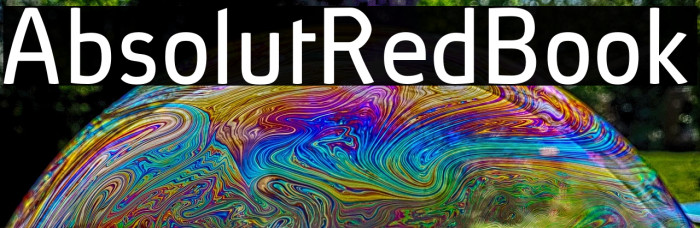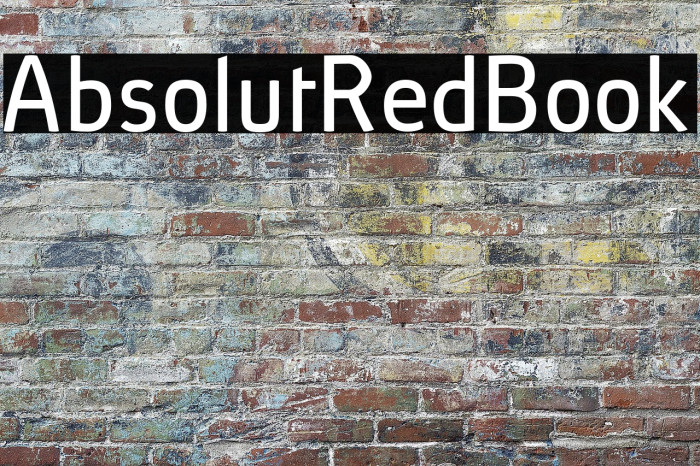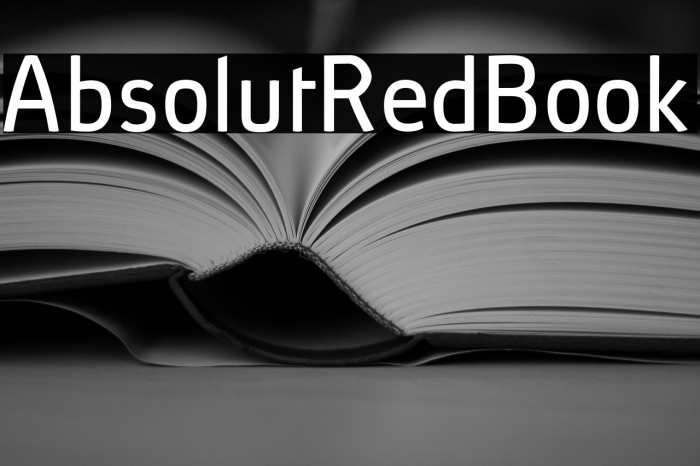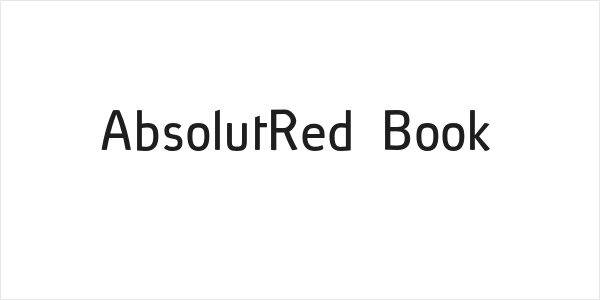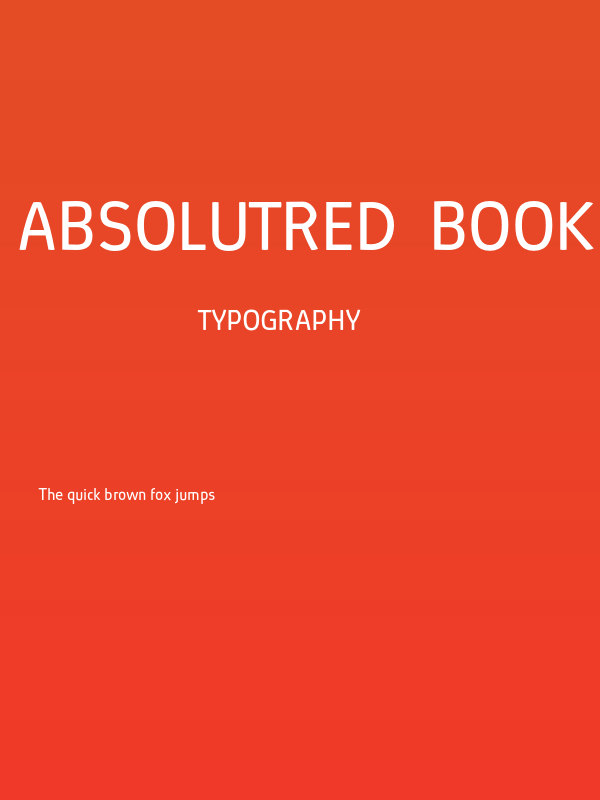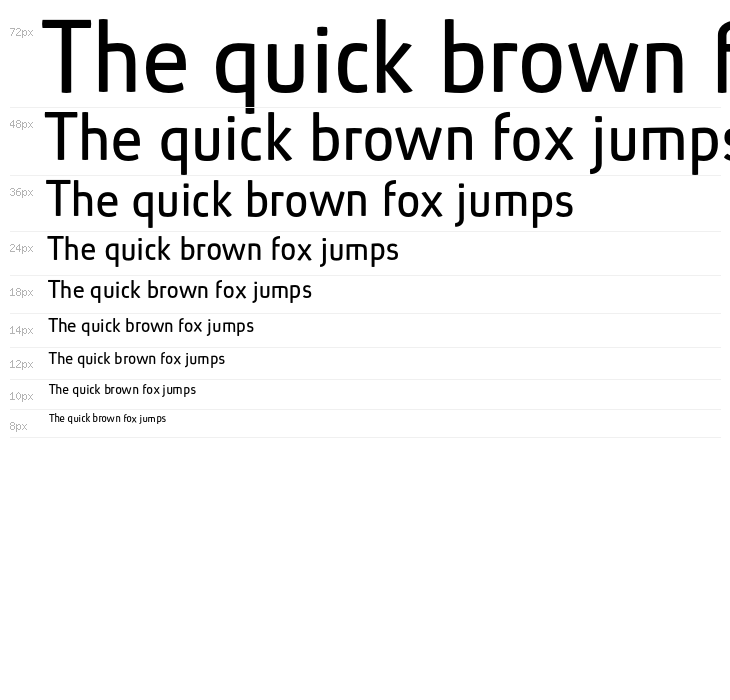
AbsolutRed-Book Font
AbsolutRed-Book Description
This font features a clean and modern sans-serif design, characterized by its geometric shapes and uniform stroke widths. The uppercase letters are bold and assertive, while the lowercase letters maintain a consistent and harmonious flow. The design is minimalistic, with a focus on readability and simplicity, making it suitable for a wide range of applications. The numbers and special characters follow the same design principles, ensuring a cohesive look across all text elements. Its straightforward style is both contemporary and versatile.
| Proposed Projects | Ideal for branding, advertising, web design, and editorial projects where clarity and modernity are essential. |